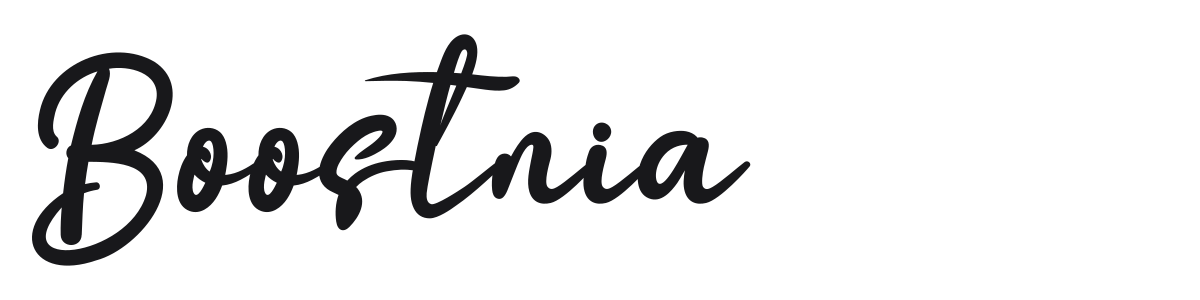
Boostnia
Boostnia is a casual connected script with natural bounce and free-flowing strokes that feel genuinely hand-lettered. Looping ascenders, extended tails, and a lively baseline give it warmth and energy without tipping into formal calligraphy. It lands well on brand marks, packaging, and anything that needs a human, approachable touch.